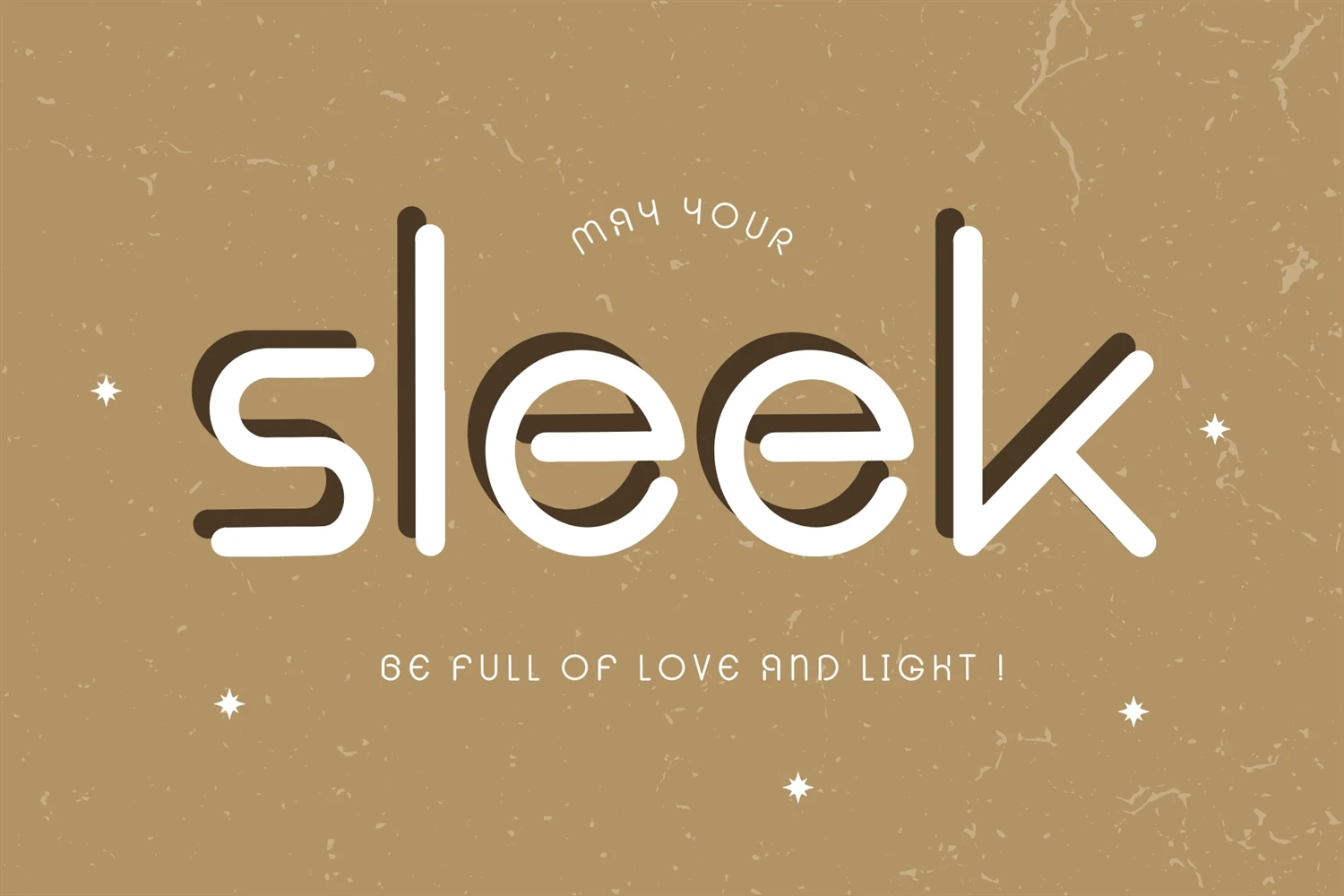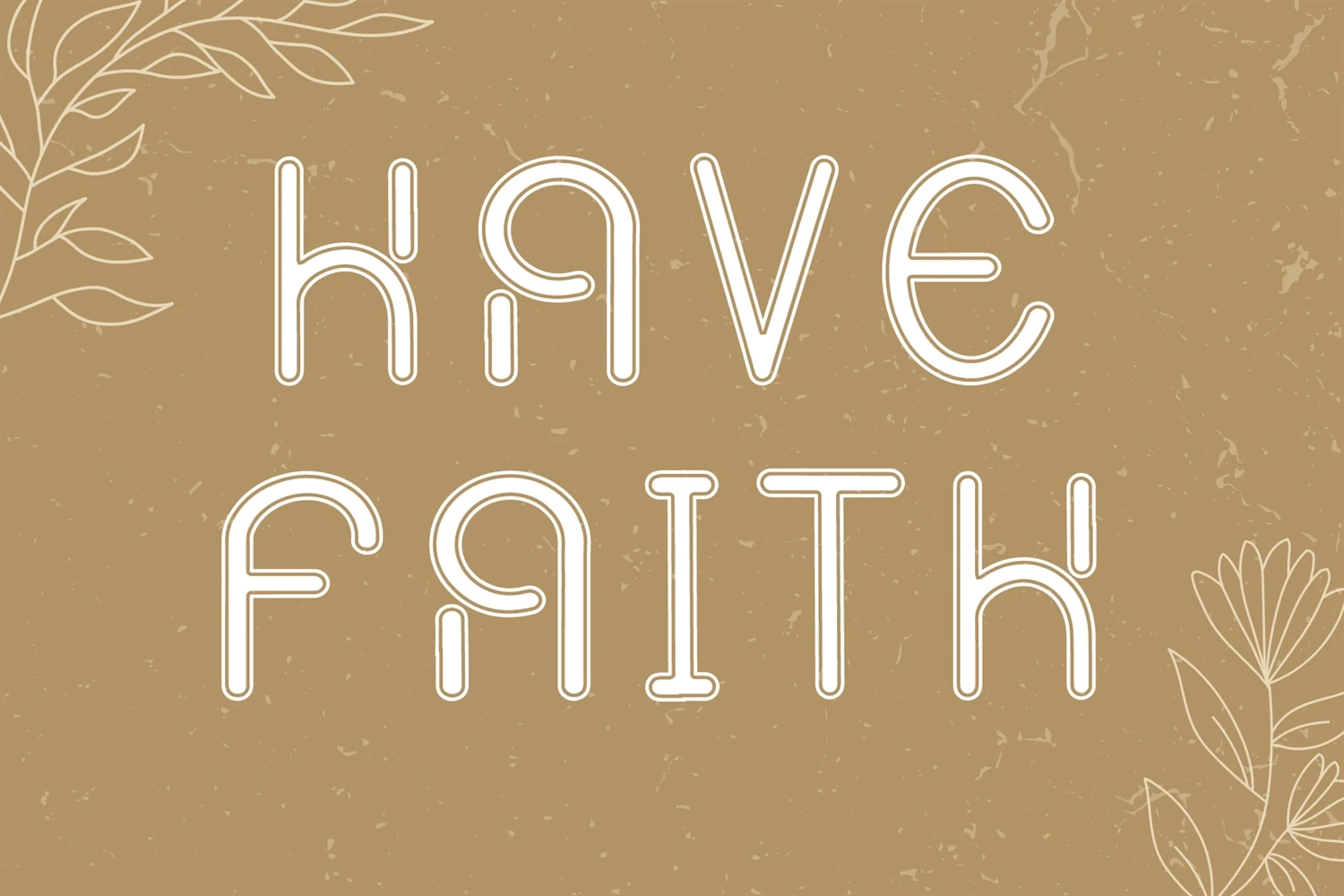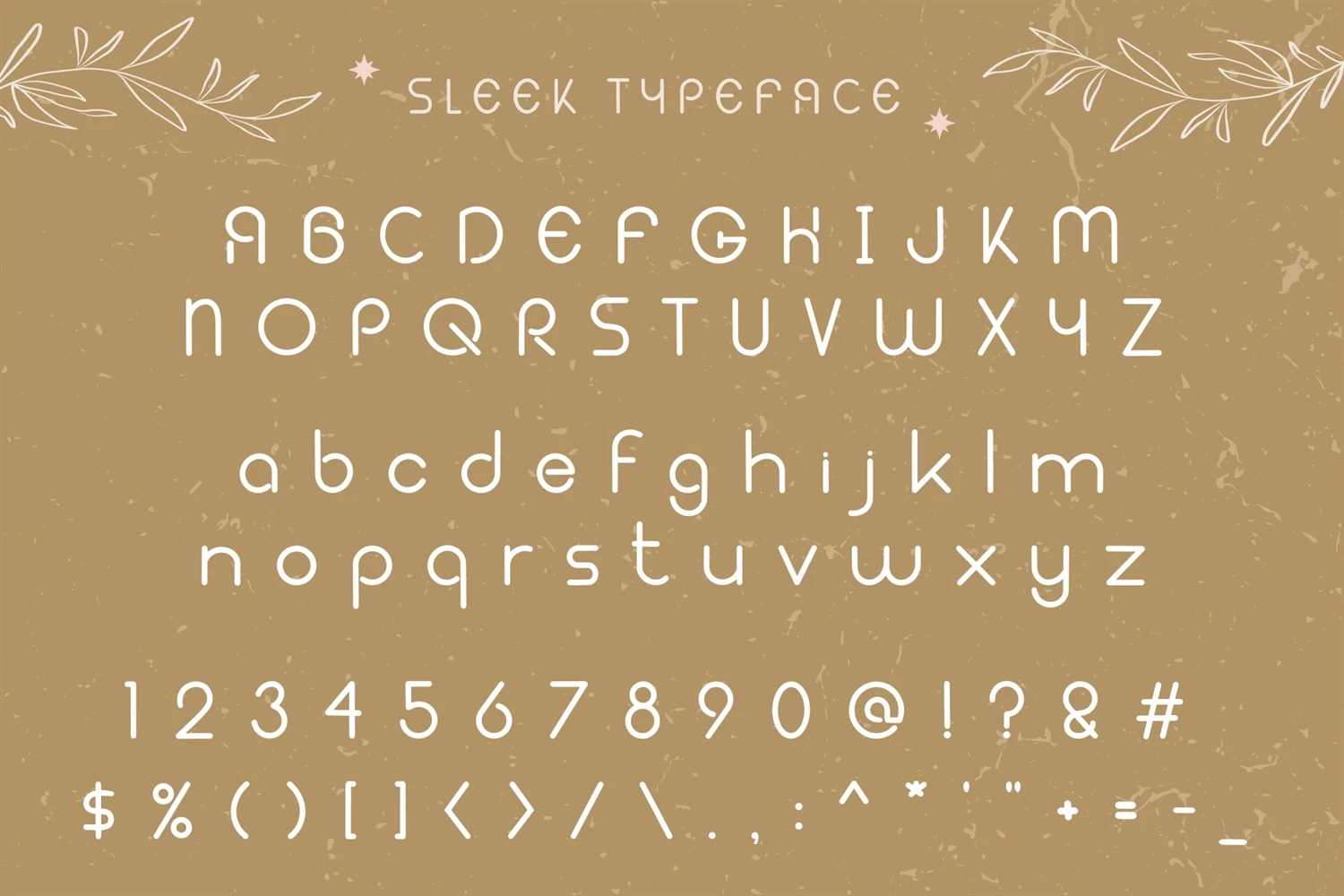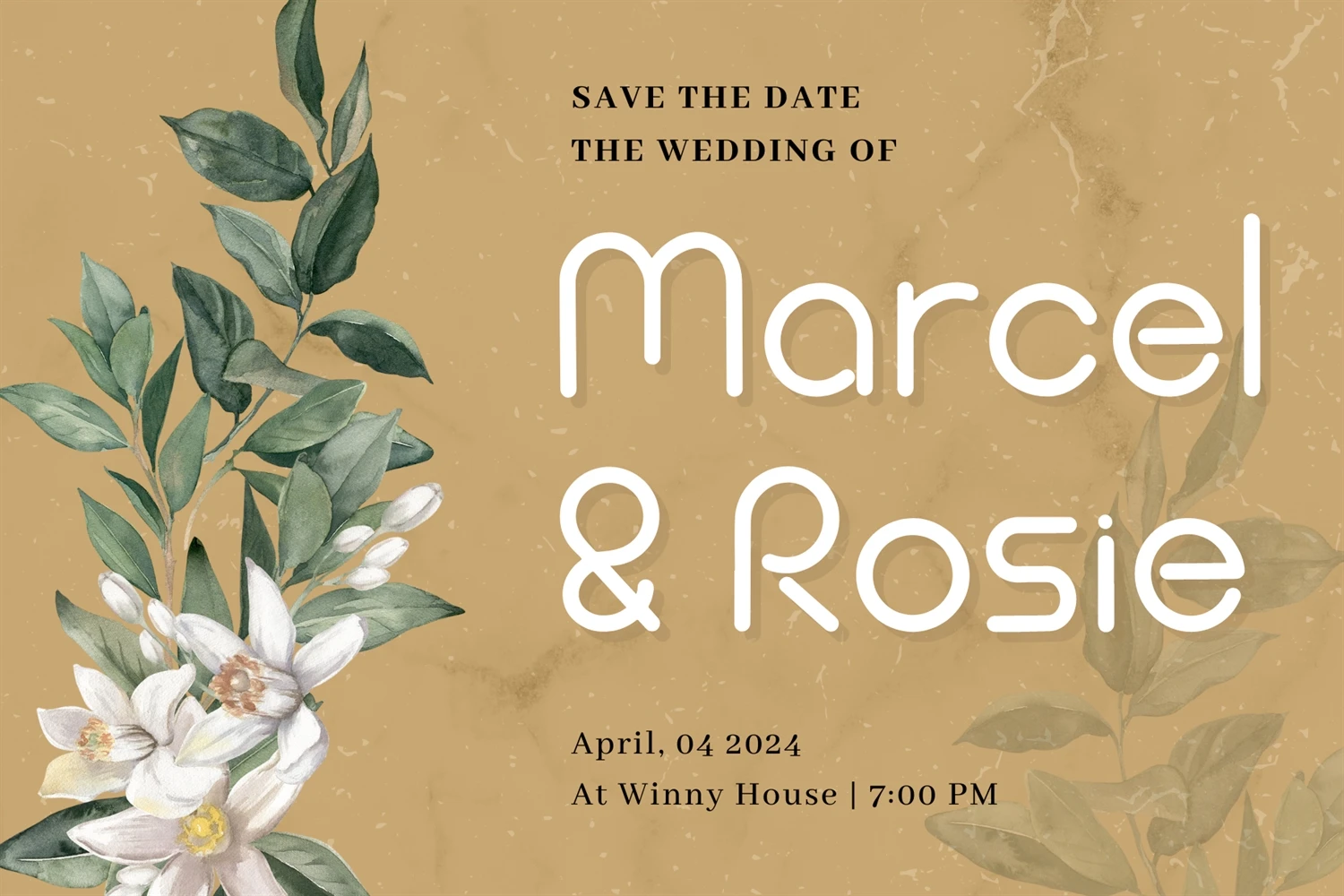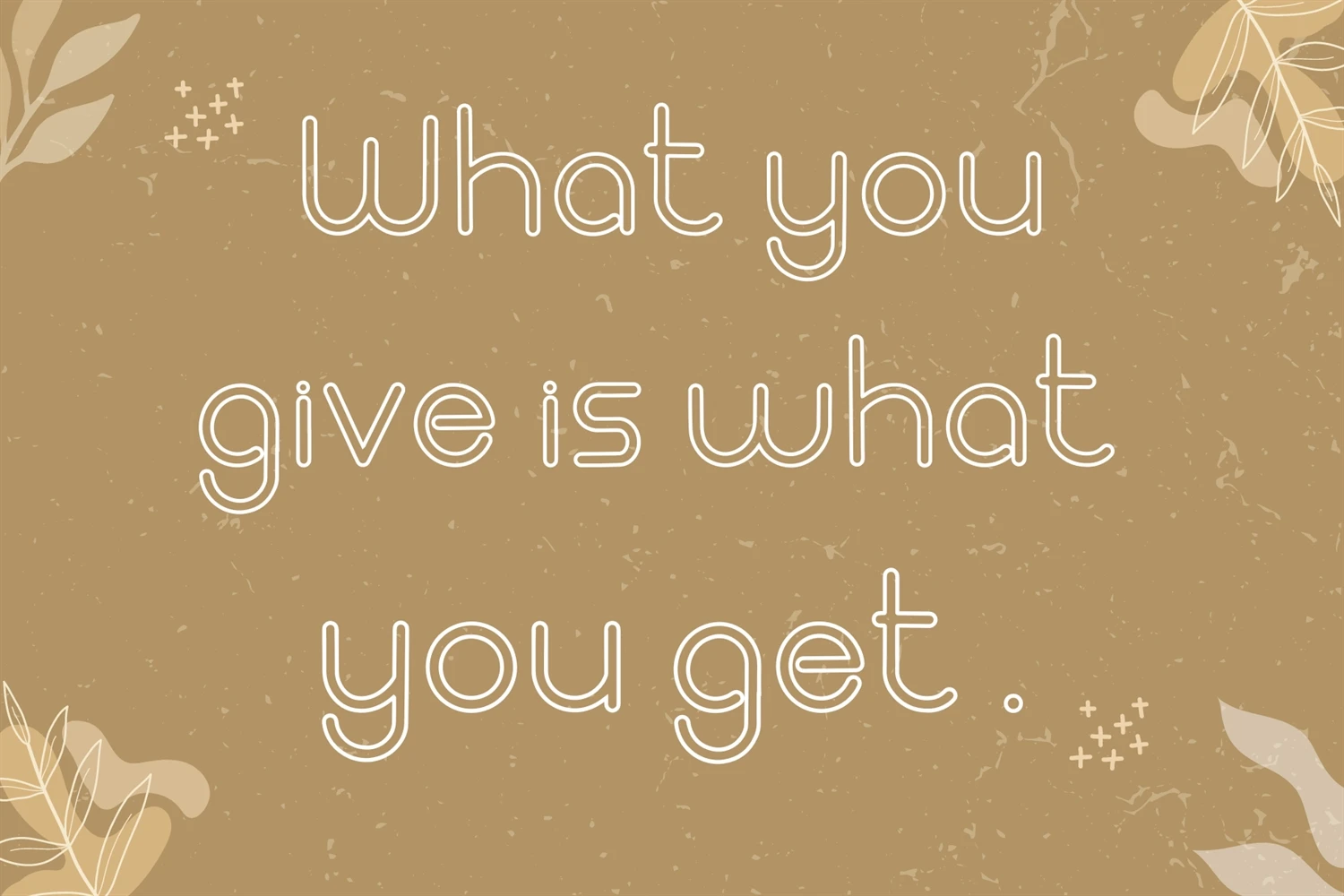
Sleek is a dynamic and modern font that perfectly blends sophistication with uniqueness. Its distinctive curves and bold strokes exude confidence and creativity, making it the perfect choice for a wide range of designs. This font is sure to leave a lasting impression on any project.